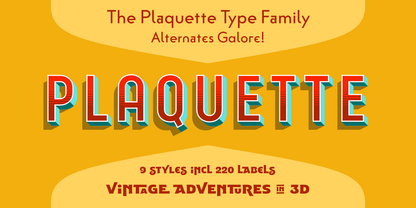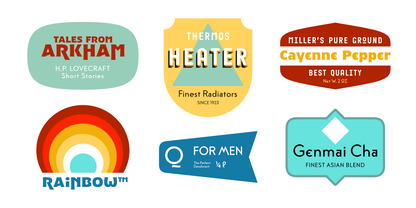
The ‘Plaquette’ family is a collection of retro fonts ranging from Victorian to Bauhaus to the sixties. They are all equipped with a load of OpenType features such as alternates, catchwords, stylistics sets and others.
Plaquette Sittl: A clean geometric style with many alternative letters, some inspired by Paul Renner’s original Futura.